Which Car Has The Best Automotive Font?
There's no operational reason to put a lot of thought into say, making a side mirror or a reverse light beautiful, but that eye for detail is what makes good cars great.
A font can do so much work in such a small space. One of the reasons I have always loved the Karmann Ghia is because the badge has not one, but two fantastic fonts. The spaced-out letters in "Karmann" give the badge room to breathe. It makes you think of the open road, of all the space that awaits you. The straight-across letters are as stately and no-nonsense as the German company it represents, while the loopy Italian "Ghia" immediately lets you know this is a car with flare. Ghia is just long enough to make the script interesting without being overwhelming. The way the G intersects the "Karmann" is an especially satisfying touch as is the way the last "a" just barely touches the second "n."
It's a cheeky font. You'd think that the blockiness of "Karmann" and the swirly script of "Ghia" would clash, but they set each other off nicely.
Another good example would be the Plymouth Fury, which just looks like it was written by someone rushing to sign a restaurant bill so they could go punch someone they saw walking by in the face.
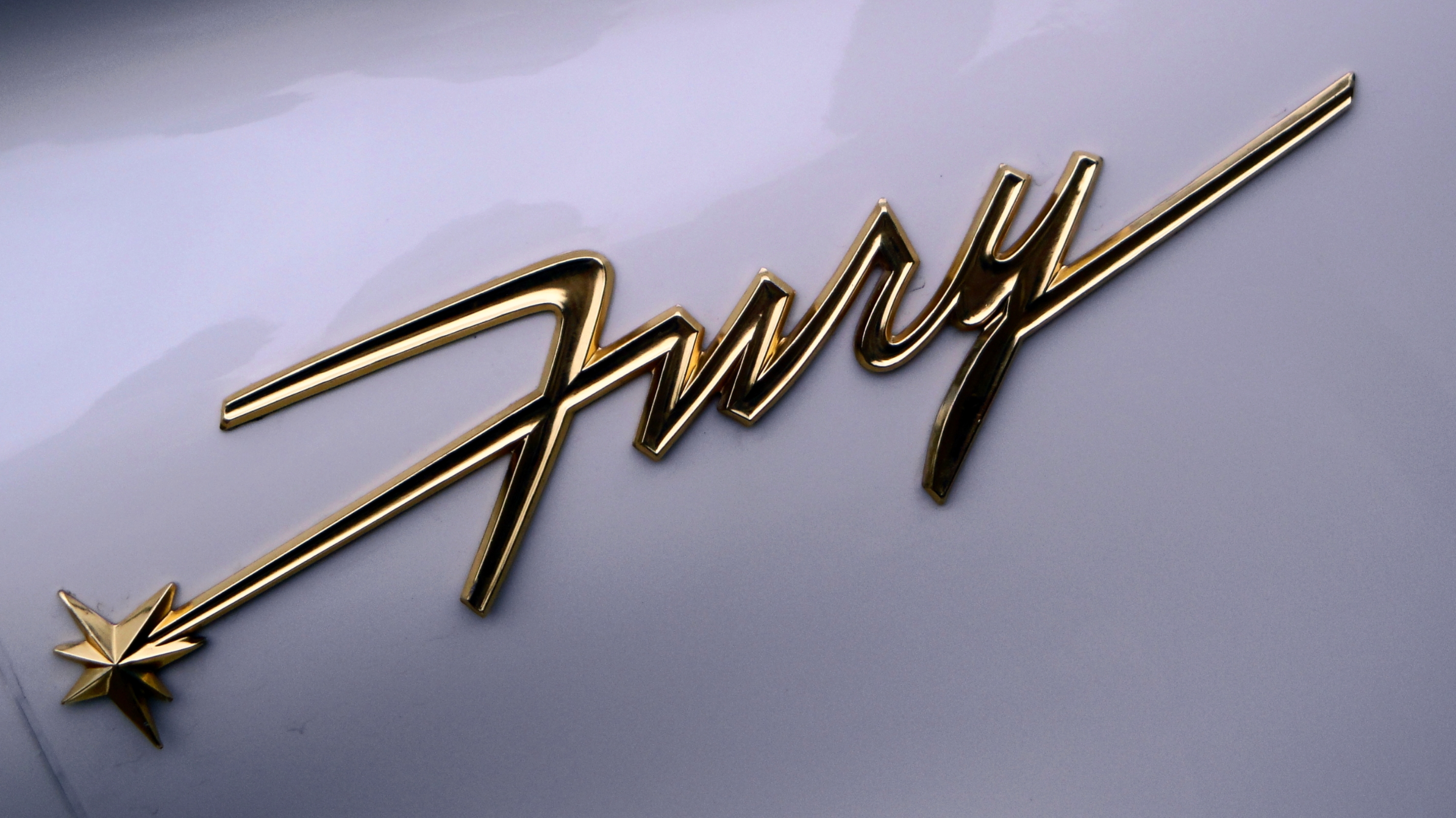
It communicates so much about what the designers intended! Now let's compare this to a badge font I viscerally hate. The revived Dodge Dart:
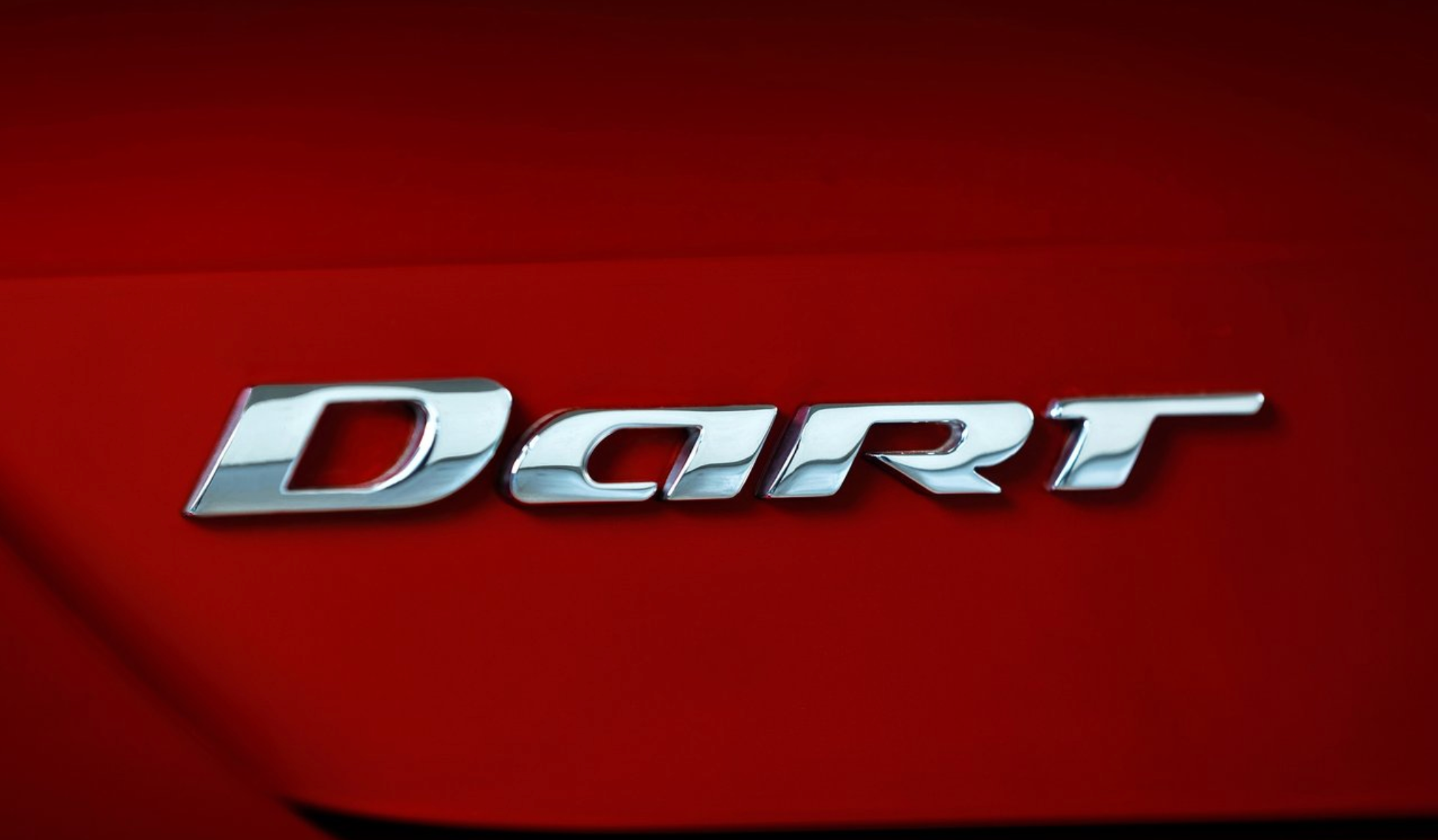
Boring. And this close up makes it look so much better than when you see it on while driving. When I spot this on the road, to me, it looks like Dort. The Dodge Dort. If your font can't even effectively communicate the name of the car, it isn't communicating anything else either.
It's not just badges that can be amazing. There are engine labels, graphics, or decals that can count as extremely good examples of font. It just gives my brain a nice shot of endorphins to see words looking good. Celebrate the little details that make cars great by dropping your favorite examples in the comments.